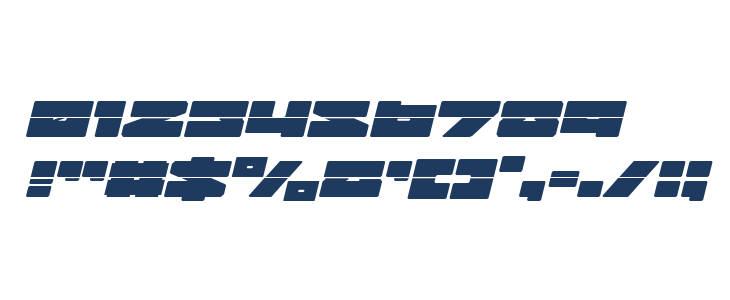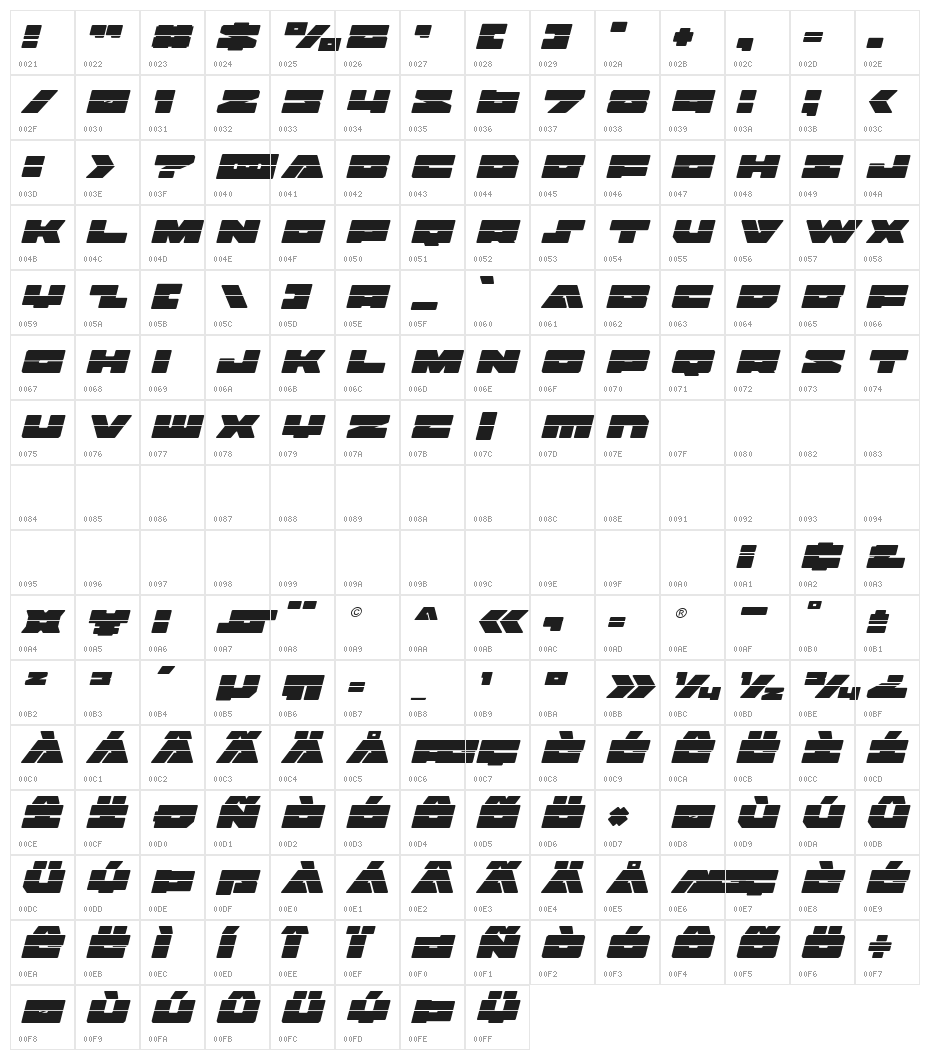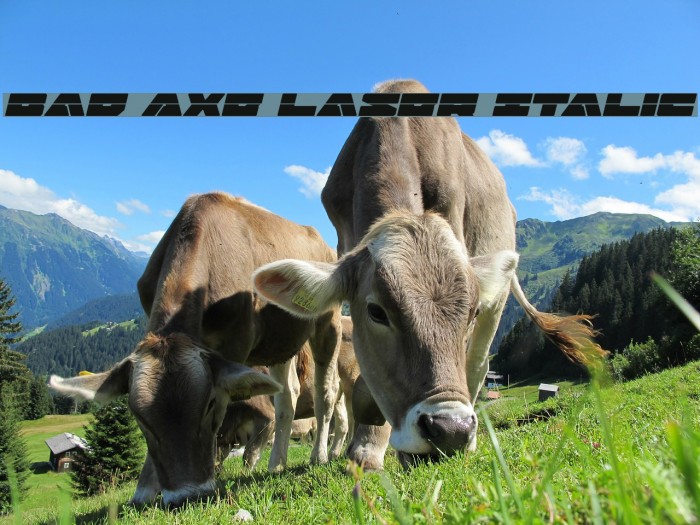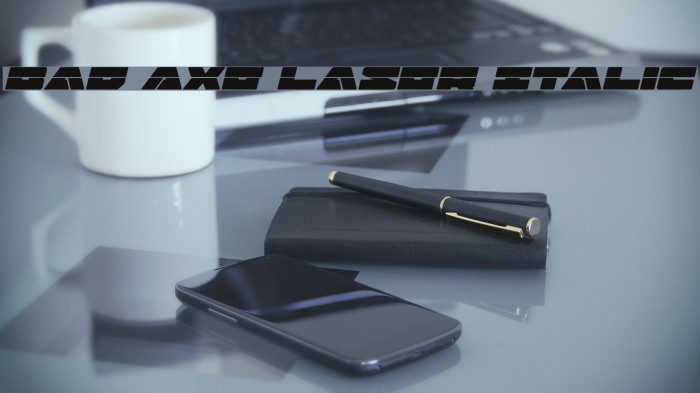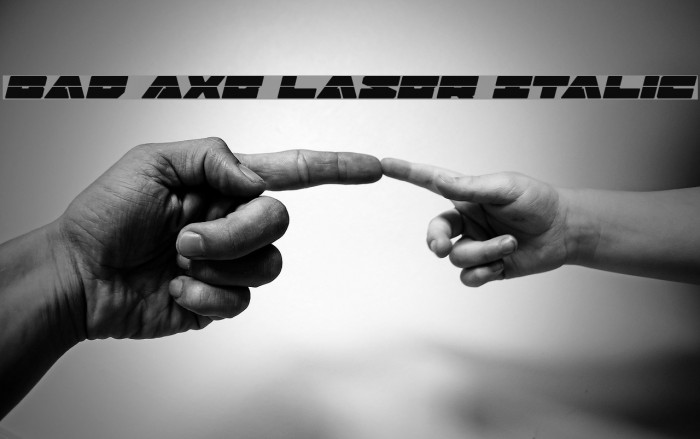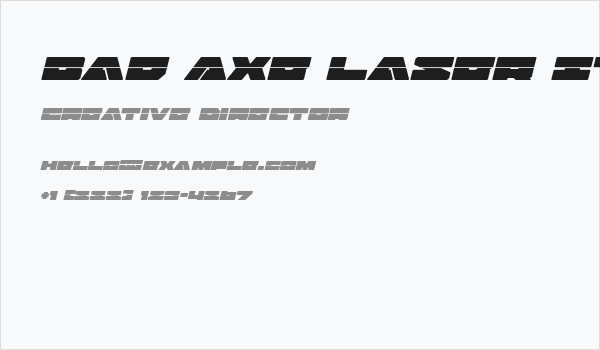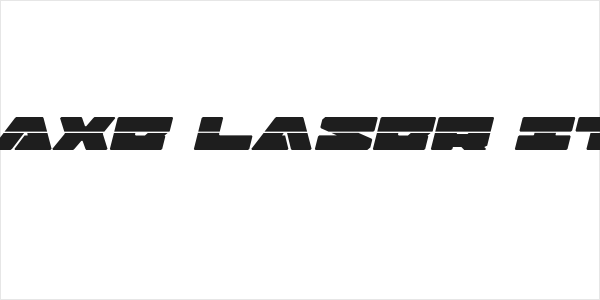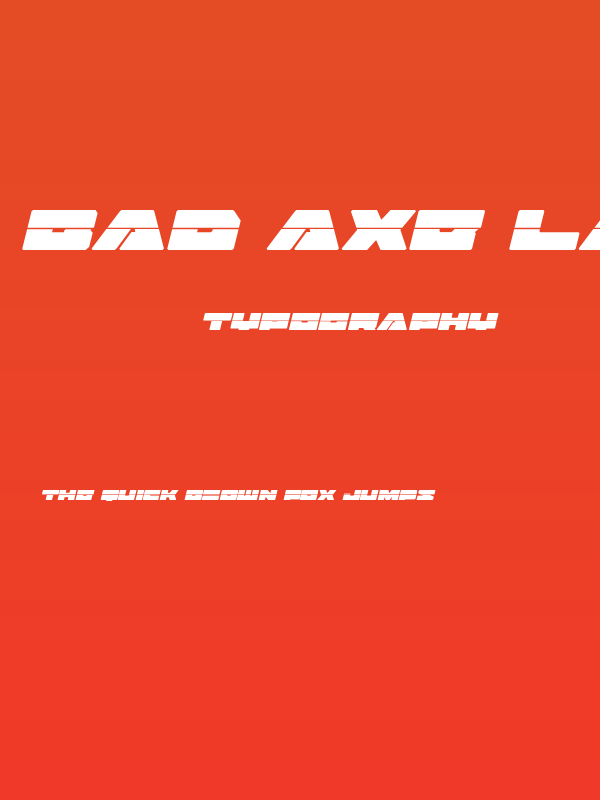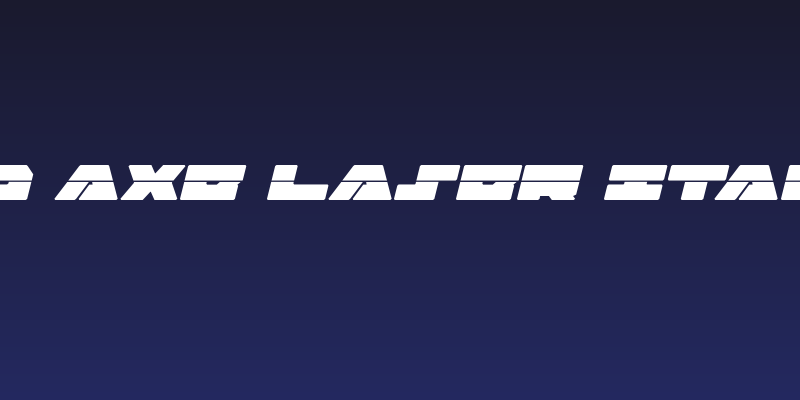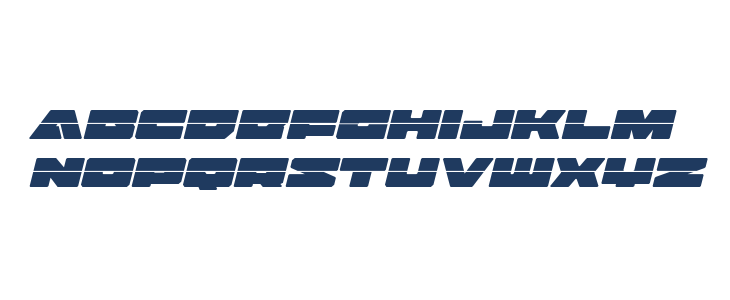
Bad Axe Laser Italic Font
Bad Axe Laser Italic Description
This font features a bold, angular design with a futuristic and industrial aesthetic. The characters are constructed with sharp, geometric shapes, giving them a dynamic and aggressive appearance. The italic slant adds a sense of motion and speed, making it ideal for projects that require a modern and edgy look. The uppercase and lowercase letters maintain a consistent style, with the numbers and special characters following suit. The font's unique style makes it stand out, suitable for attention-grabbing headlines or branding that demands a strong visual impact.
Proposed ProjectsIdeal for use in technology branding, sports team logos, video game titles, and sci-fi themed posters.